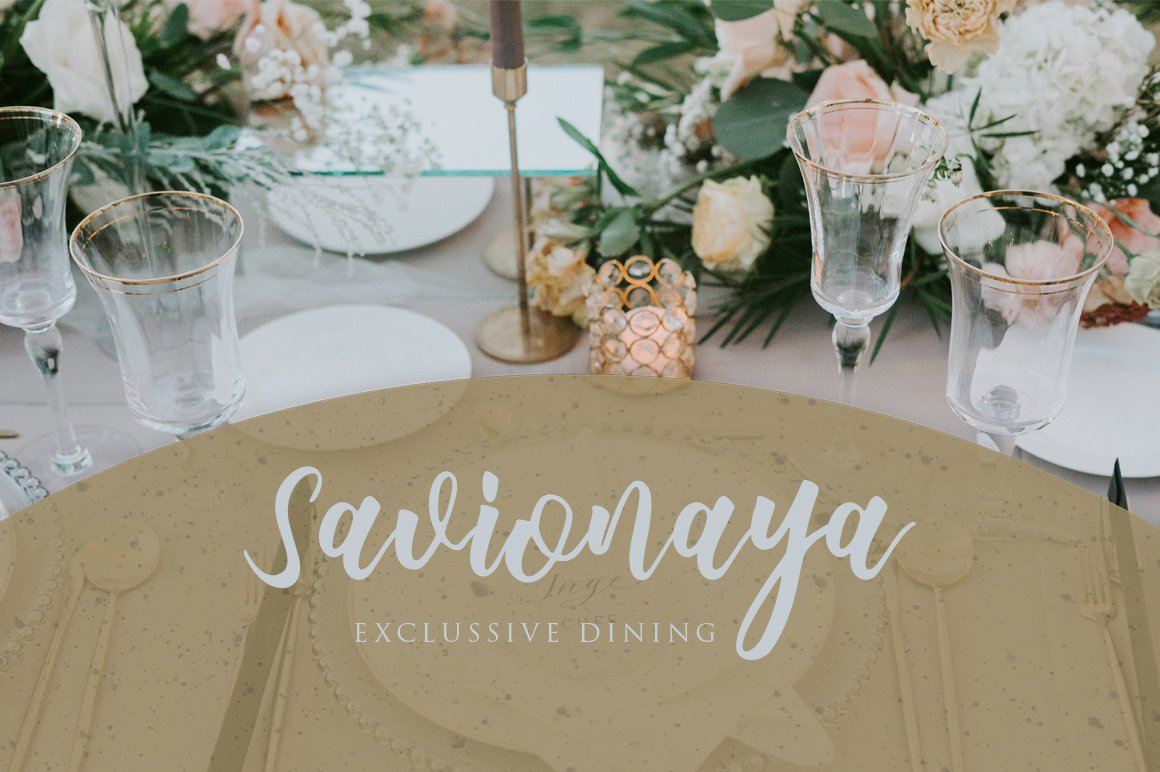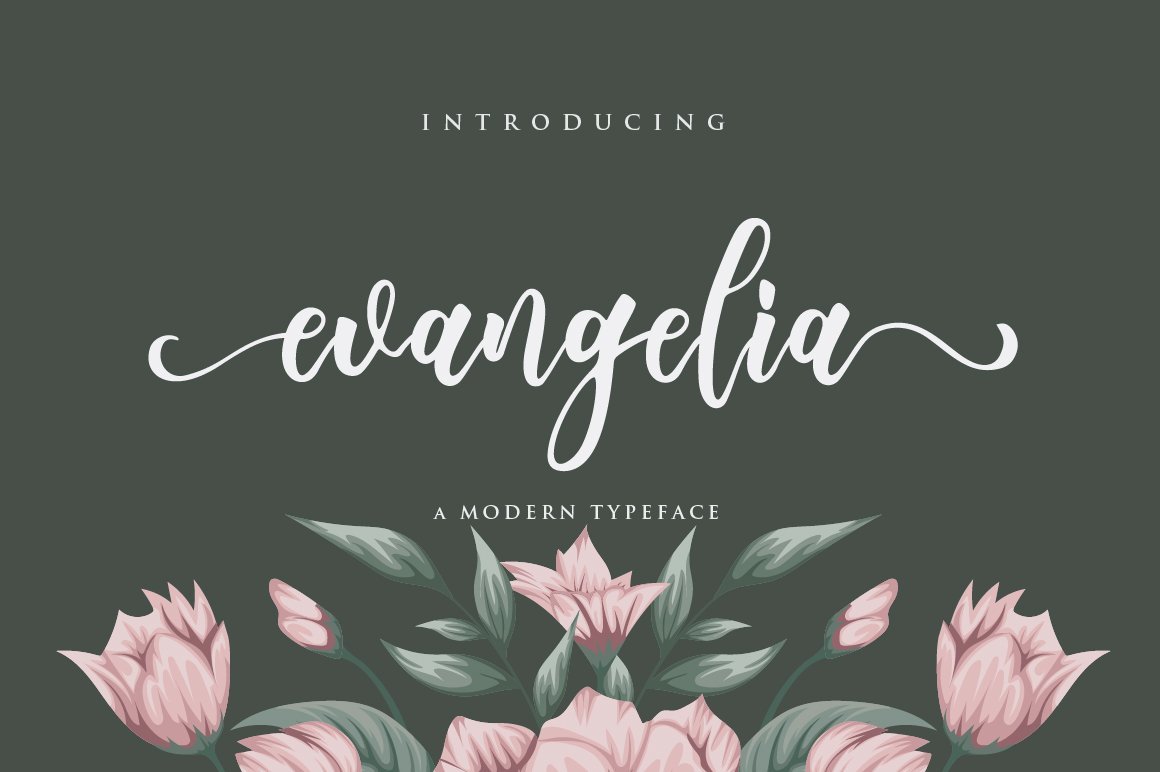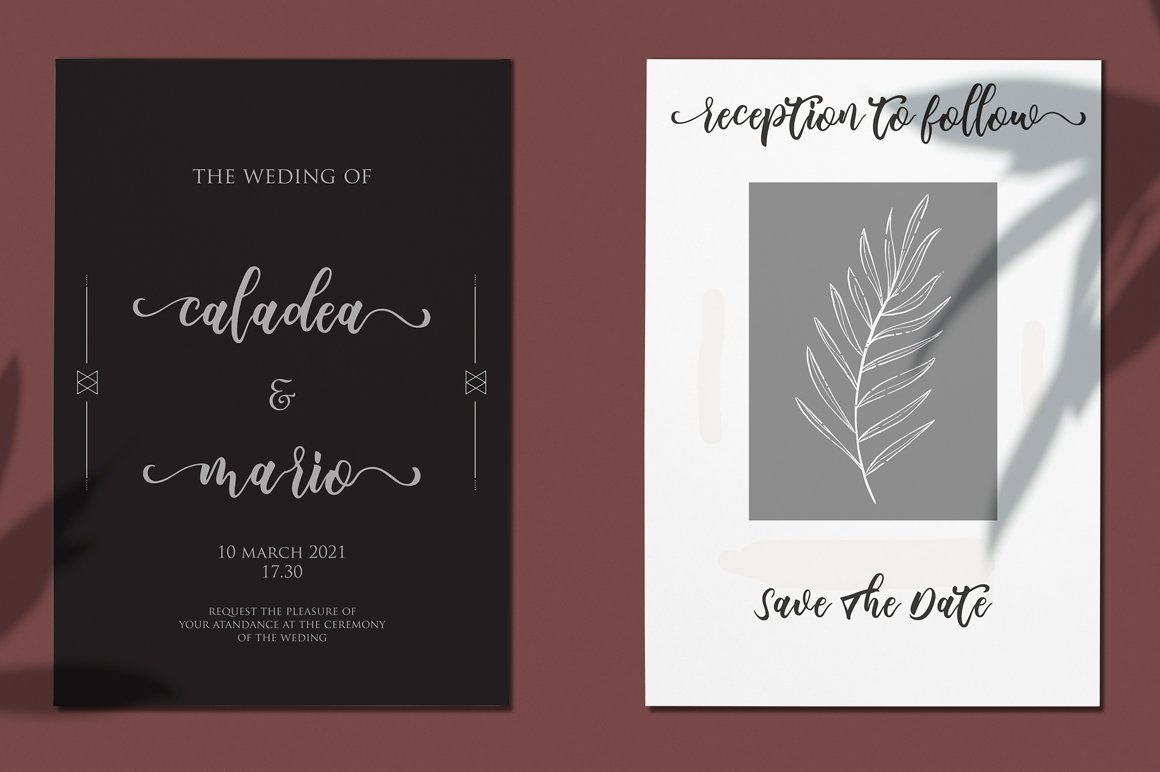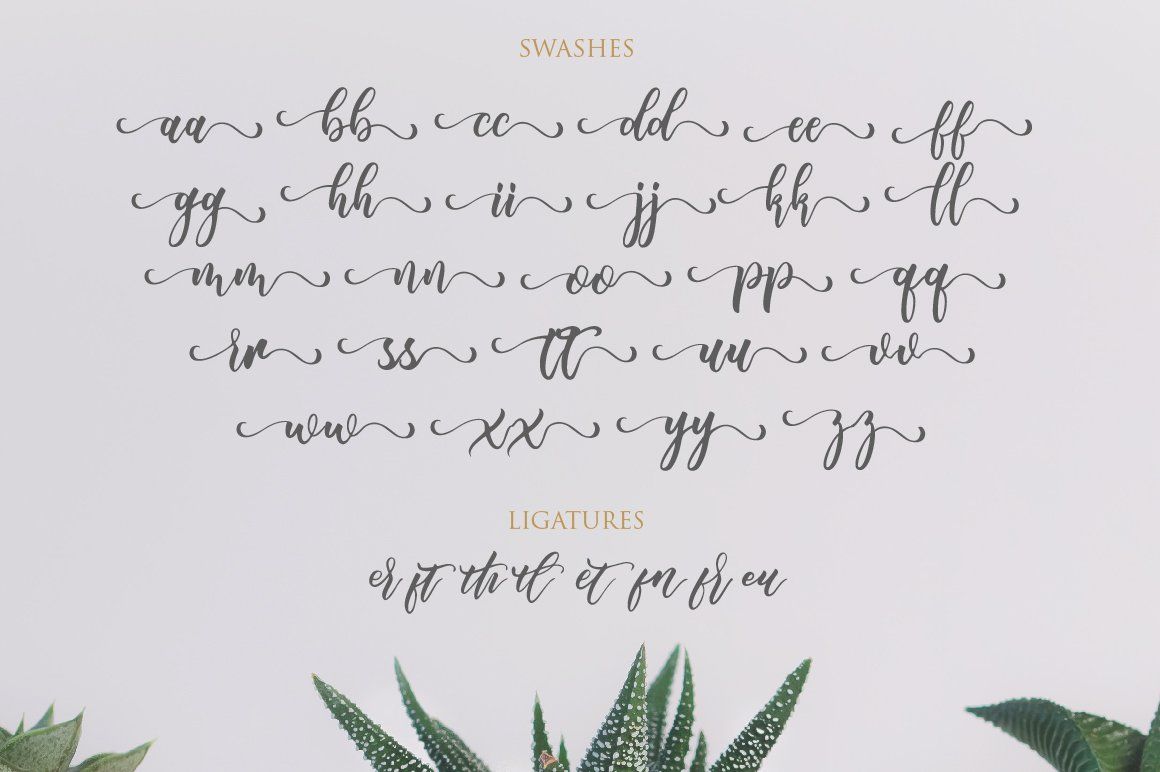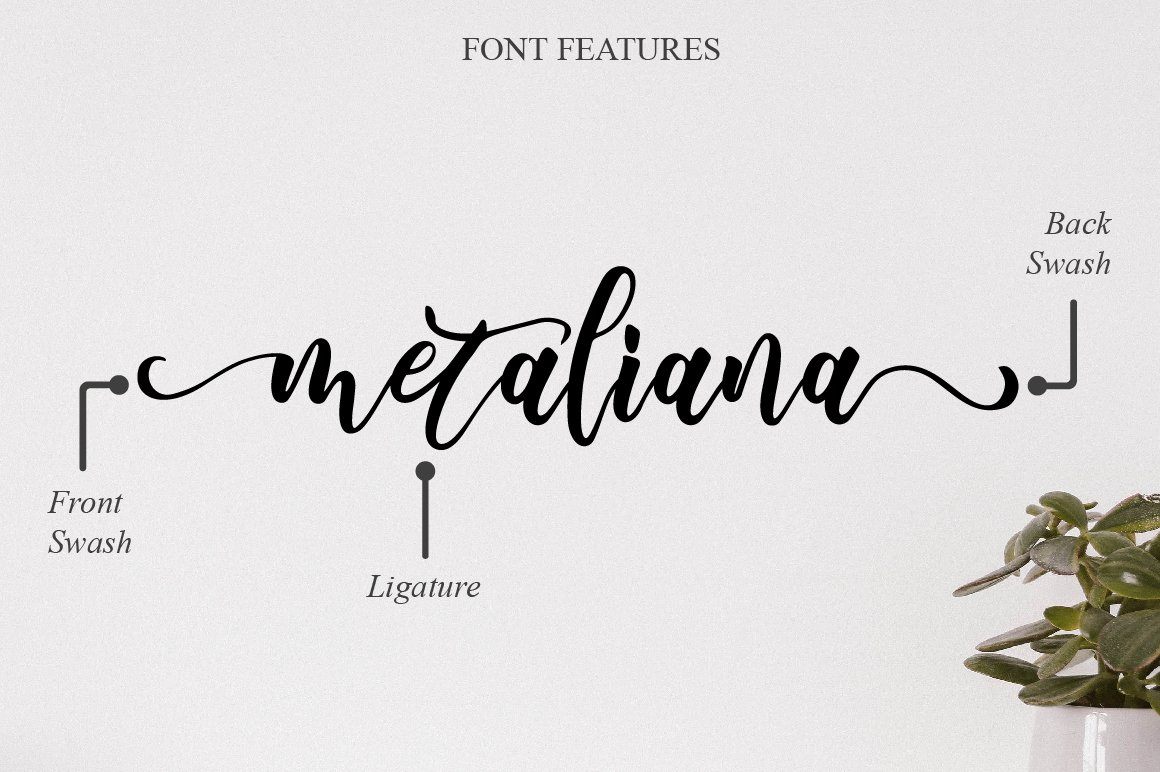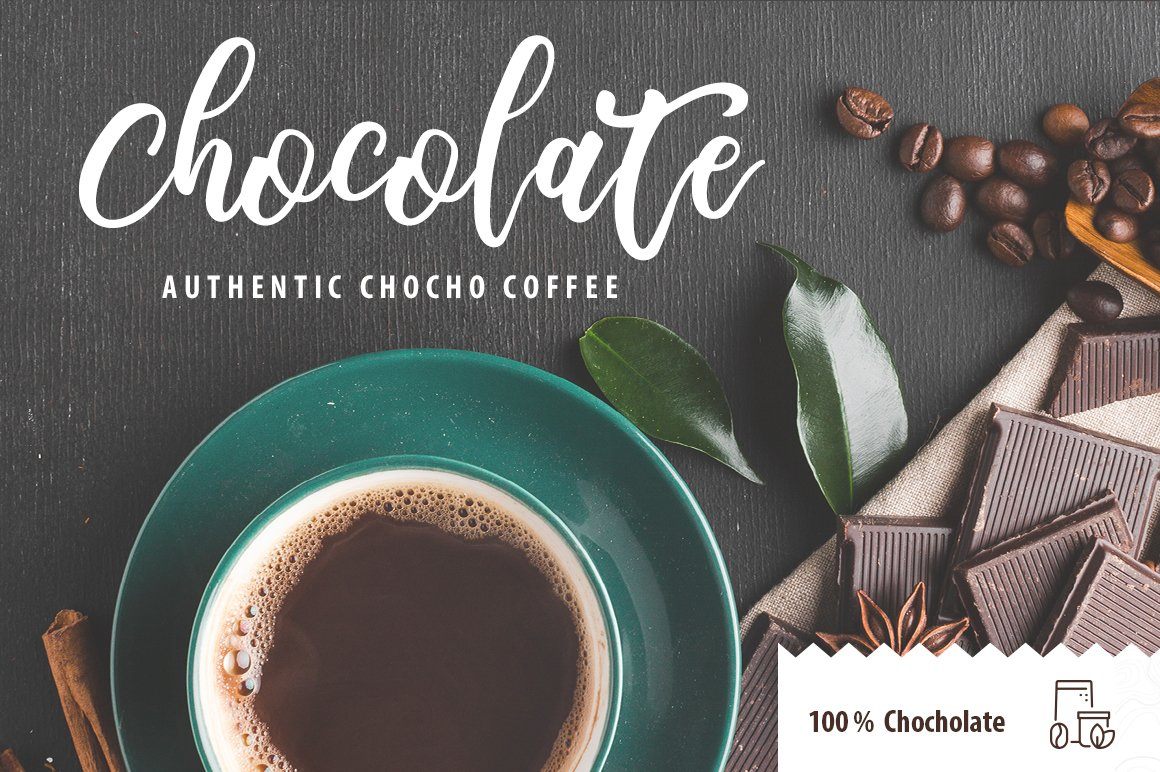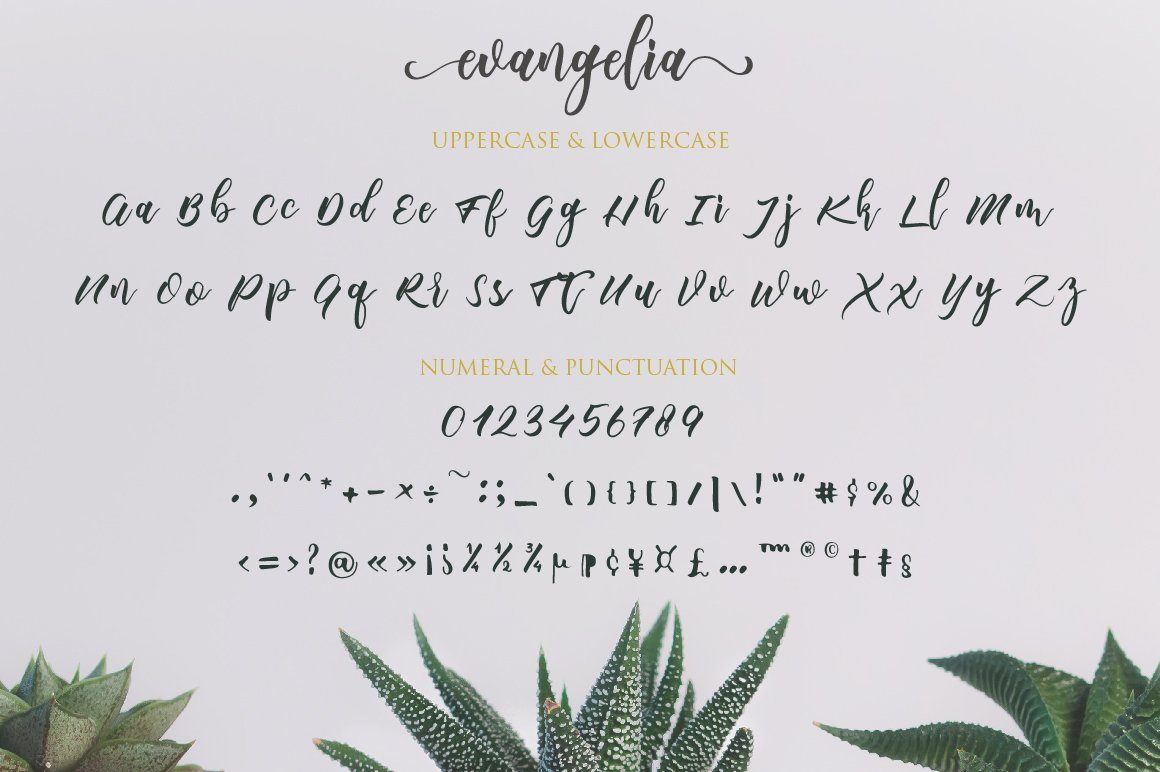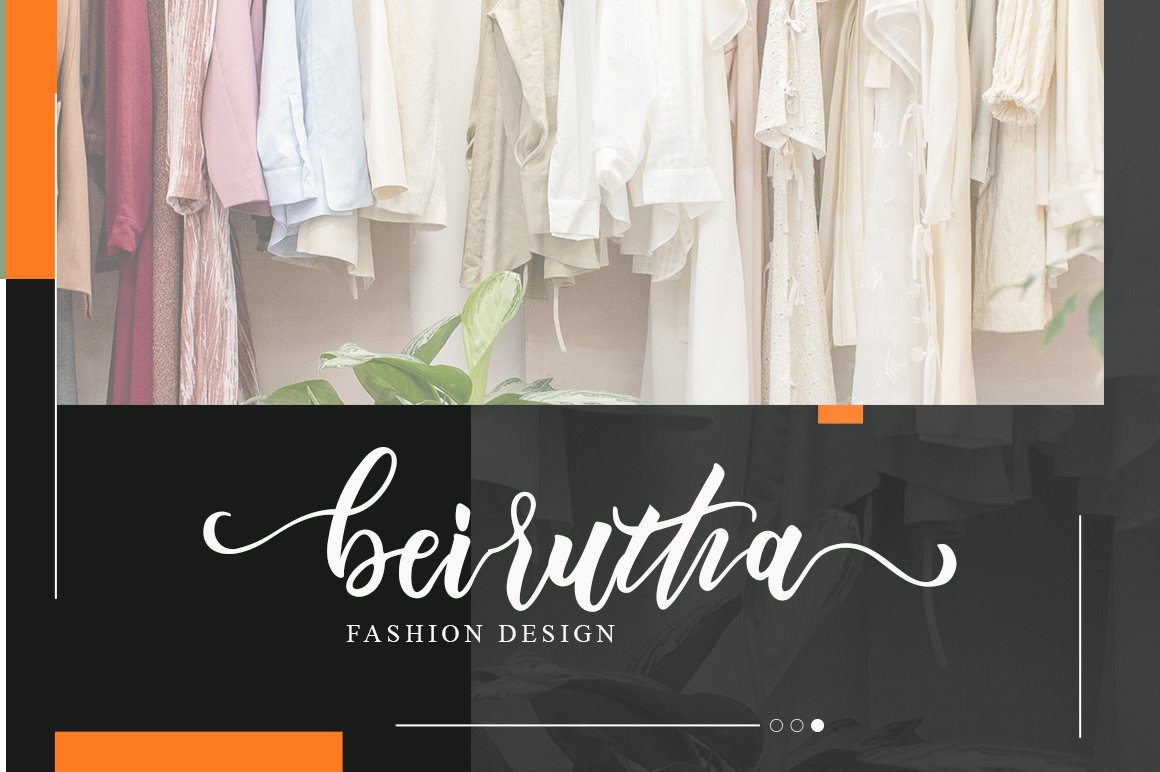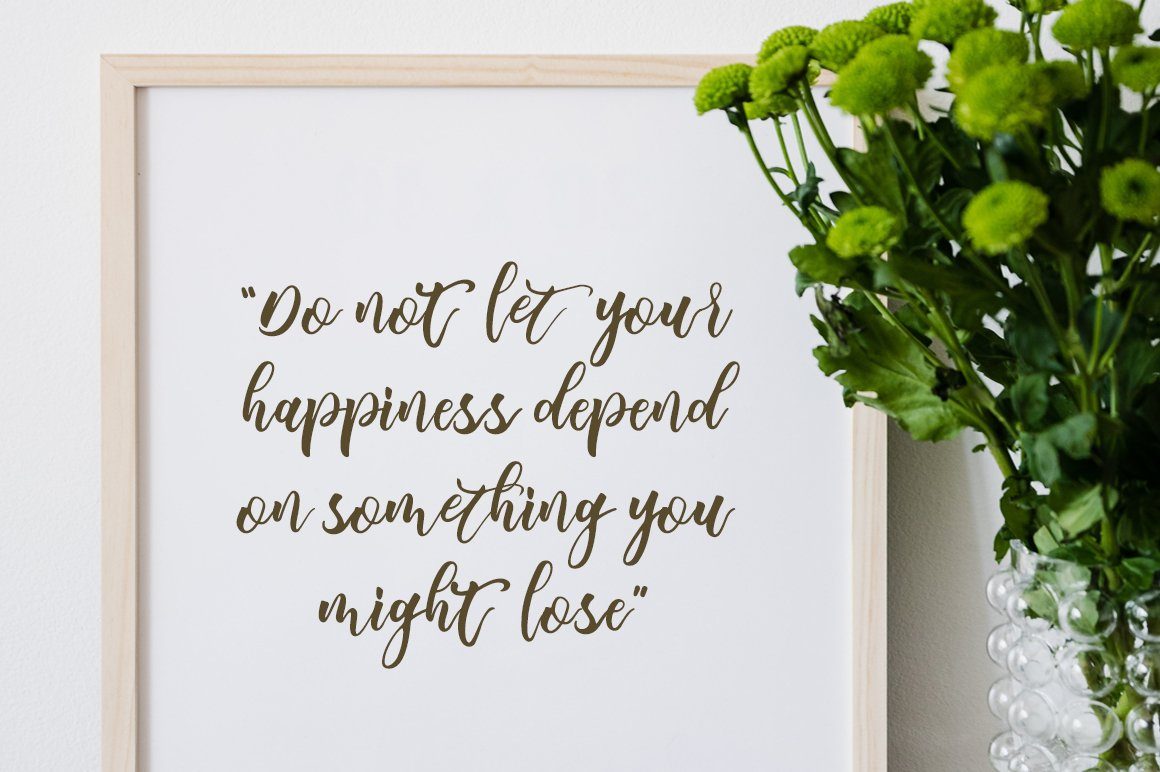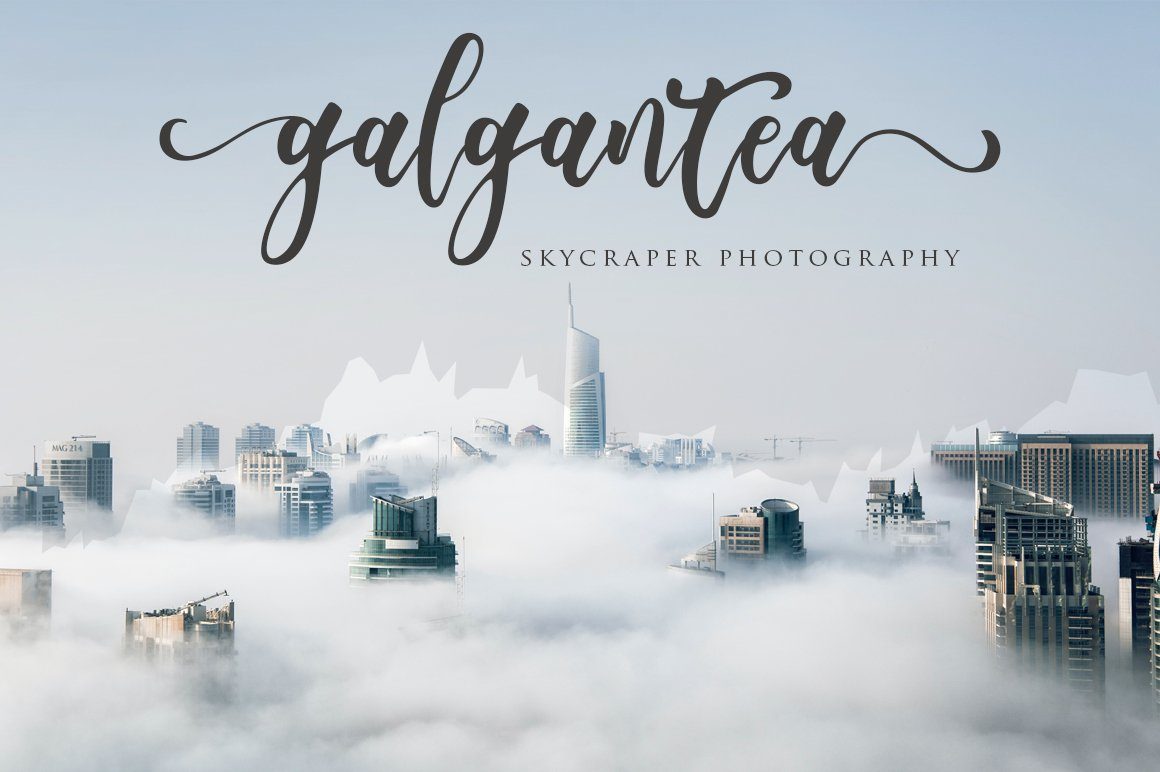
Evangelia Script
The \”evangelia\” is a stylish feminine font. It includes amazing swashes which will add a feminine touch to your designs. What’s Included : evangelia OTF evangeliaTTF Numeral and Punctuation 52 Swashes International Language Works on PC & Mac Simple installations Accessible in the Adobe Illustrator, Adobe Photoshop, Adobe InDesign, even works on Microsoft Word. Thank you for your purchase! Hope you enjoy with our font!